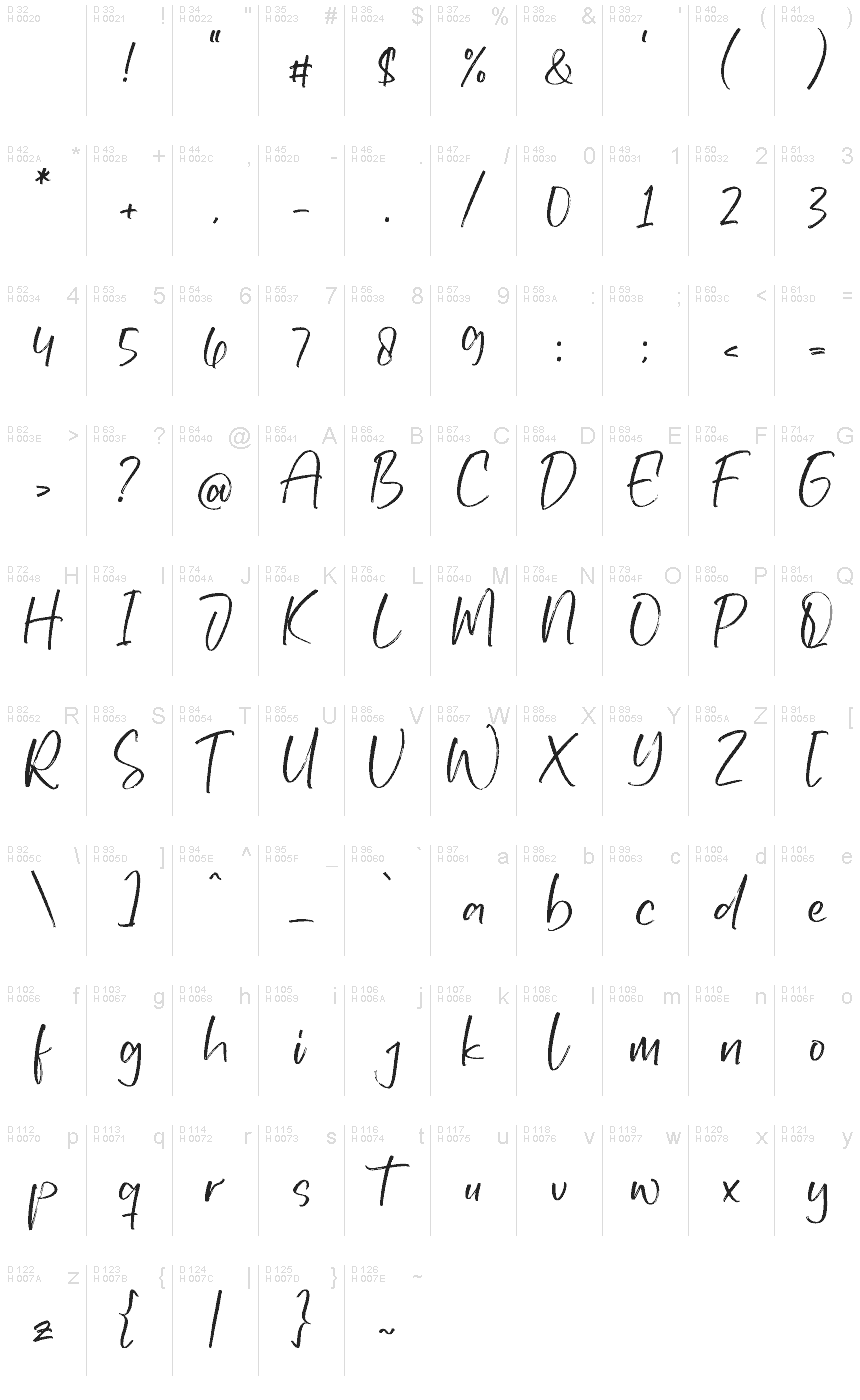
Smiling Elida
Smiling Elida font, designed by Perspectype Studio - Letterena.com, is a modern light handwritten typeface with an expressive style. This casual script carries a friendly vibe and delivers an overall contemporary feel. Experiment with this free great-looking resource in delivering your audience a fun, different perspective.
Suitable contexts include typography posters, T-shirts, postcards, invitations, books and magazines covers, headings and sub-headings. The font can also be used for photography purposes as well as branding elements such as the logo and packaging design.